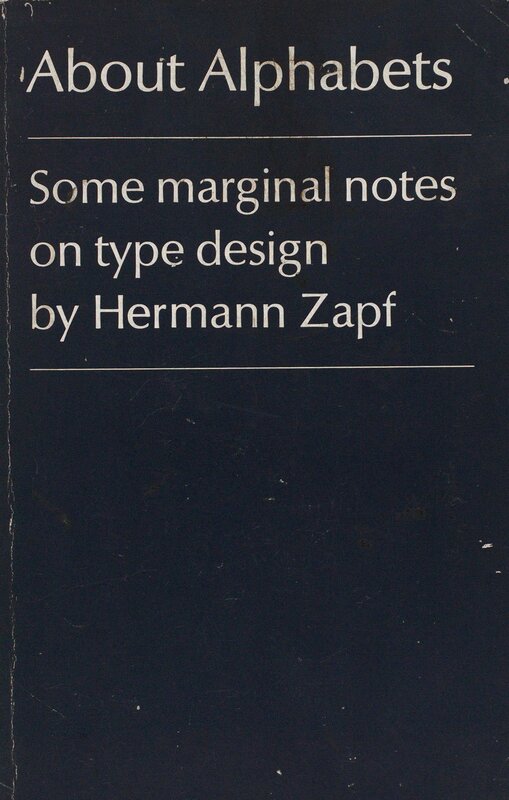
About Alphabets
• some marginal notes on type design
Inhalt: 'Type is the tie or ligature between author and reader,' writes Hermann Zapf, 'and it is much to be desired that readers become more critical and gradually more sensitive about the choice of type in a book. In this connection the question arises whether our modern book production shows generally that unity of content and form common, for example, among the books of the 15th and 16th and even later centuries. Why is this unity generally lost? And is it not an anachronism when Albert Einstein's relativity theory, or works by Bertrand Russell, Pasternak and other such are printed with types of historic design?...Books of historical content, books that seek to produce a certain mood or atmosphere in the reader, such books may continue to be set in historical or classical types—I do this myself in my own typographic works. On the other hand there are available so many devices expressive of our time that we ought not to banish them when we design books for our time.' The designing of typographic devices and books 'for our time' has been Hermann Zapf's central commitment as an artist. In this book he displays his art—he designed the book, which is set in a typeface of his own devising, Linotype Optima. The book is illustrated with type specimens from other fonts he has designed, and the text is both an autobiographical account of his artistic development and a statement of principles. First published in 1960 in a limited, numbered edition by The Typophiles, the book is now presented in a revised edition for the growing number of readers, printers, and designers who have become sensitive and sophisticated in matters of type. They will particularly be able to appreciate the author's versatility of form and graphic statement as reflected in the type styles illustrated here, including such famous faces as Palatino, Melior, Saphir, Aldus, and Optima. Other faces are also illustrated, some embodying Greek, Cyrillic, and Arabic characters. There are in addition some double-page working drawings showing changes and alterations in the author's hand and several specimen page layouts.